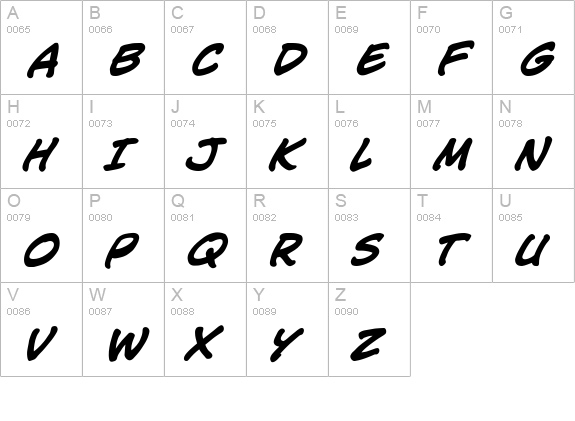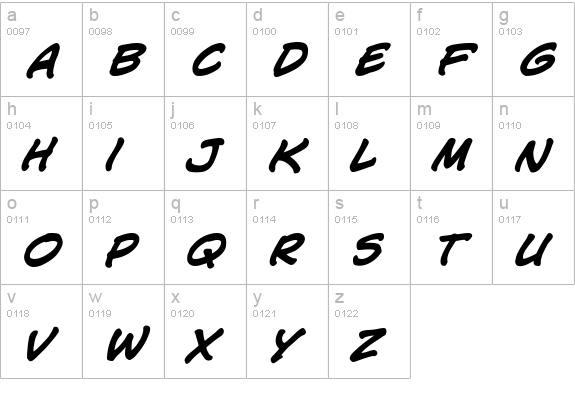
CCJimLee-BoldItalic Font Details
CCJimLee-BoldItalic is a striking and bold italic font designed to make a statement. Its strong and dynamic presence is perfect for headlines, titles, and other prominent text pieces. The sleek italic style adds a touch of elegance and sophistication to any design project. What makes CCJimLee-BoldItalic even more appealing is that it is completely free to download. You can easily access this eye-catching font at FontsMarket.com. Whether you're working on a creative project, designing a website, or crafting a presentation, CCJimLee-BoldItalic is a versatile and stylish choice that will help your text stand out. Add a touch of modern flair to your designs with this free and easily accessible font.